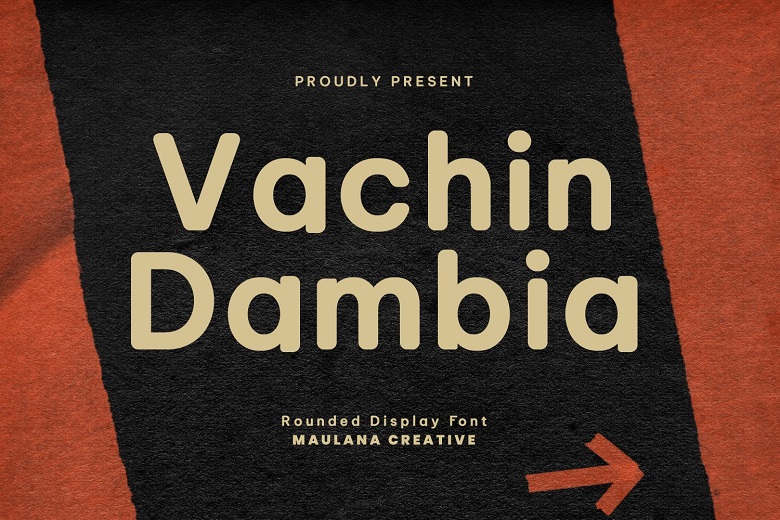
Vachin Dambia Font
Vachin Dambia is one of rounded modern sans serif font. It would be simply modern typeface, with tall and smooth letters with certain amount of ligatures and alternate characters. To give you an extra creative work I’ll give the definitions of the most frequently used terms in the advertising industry. Now you can make your choice Vachin Dambia is support multilingual more than 100+ language fonts.
This font is suitable for logo creation, Social media, Movie title, Books title, short text or even a lettering text, title of a poetry or a play, and a good choice for your body text font with either sans-serif or serif. Strong a beautiful work use of Vachin Dambia font.
Vachin Dambia Sans Serif Font